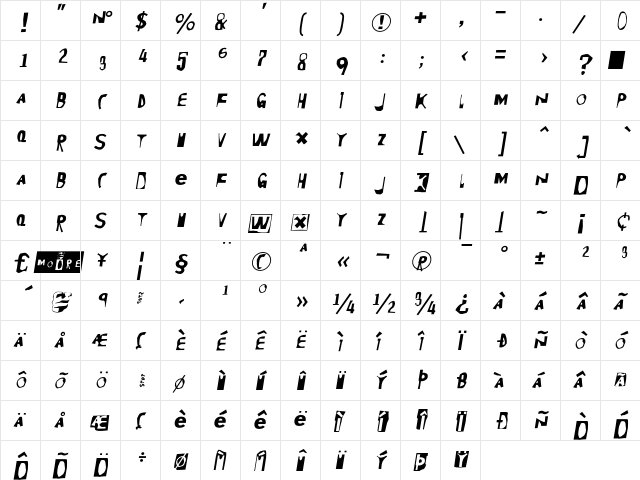
Moore899 Italic
Design Context for Moore899 Typeface
Moore899 is a composed and adaptable typeface that performs quietly and consistently across a wide range of design contexts. Its italic angle brings a sense of urgency and motion to the letterforms.
Pro Tip: Use Moore899 for emphasis, pull quotes, and subheadings where its slanted energy can add rhythm to the layout.